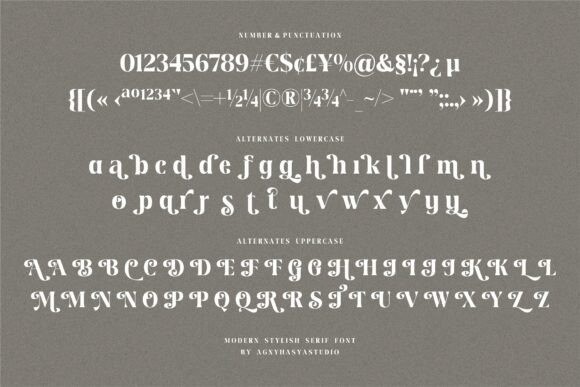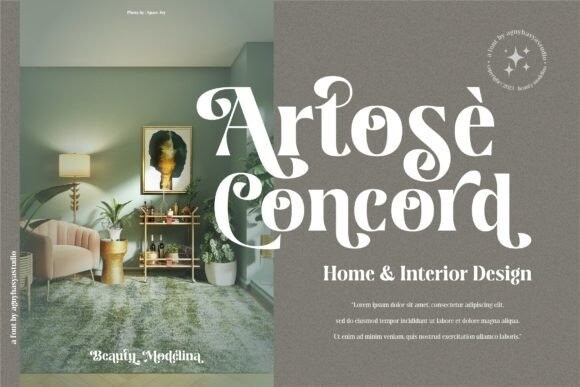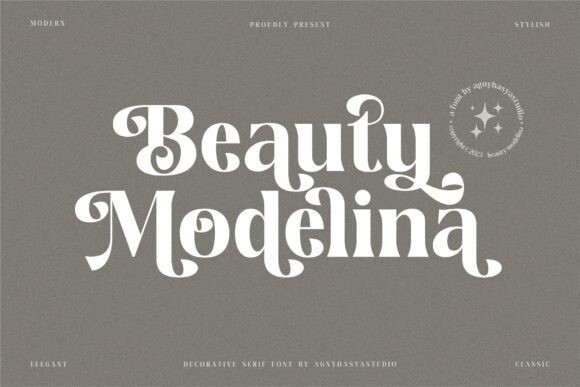
Beauty Modelina Font
Beauty Modelina Font is a Modern Stylish Serif Display Font with a Decorative, and Elegant Style It comes in 2 (two) weights (regular & bold) including slants, and is created with stylistic alternates and ligatures. Combine it and make your perfect typography design!
Perfect for your design projects like logos, branding, advertising, product designs, stationery, magazine designs, book/cover title designs, photography, art quotes, wedding designs, fashion designs, special events, labels, product packaging, and more.